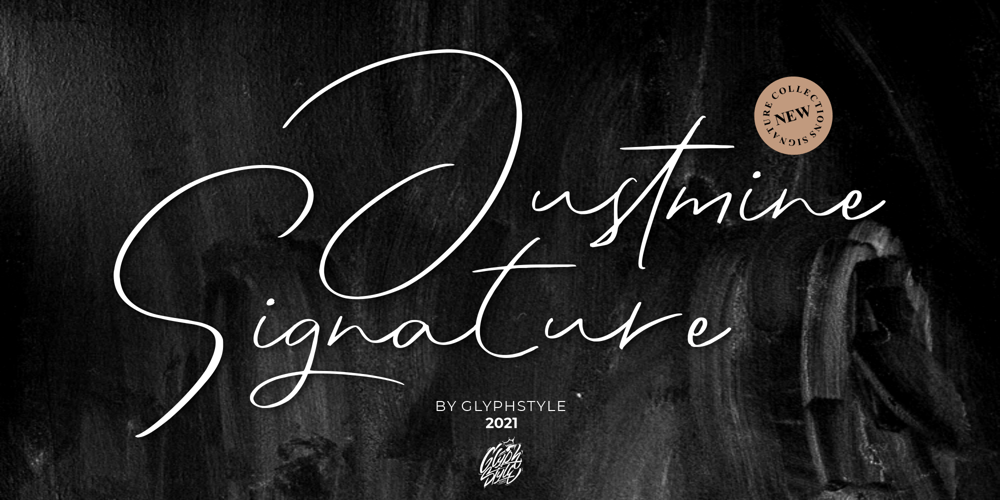
Justmine
Justmine font
Justmine Font Family was designed by Dimas Ardhi and published by GlyphStyle. Justmine contains 1 styles and family package options. Justmine is a signature style font that is casual and easy to read. Luxurious and premium looking fonts. This signature font is perfect for, watermarks, branding, business, business cards, product logos, etc.– Font feature Uppercase, Lowercase, Numerals & Punctuations, Stylistic Alt, Ligature, Multilanguage